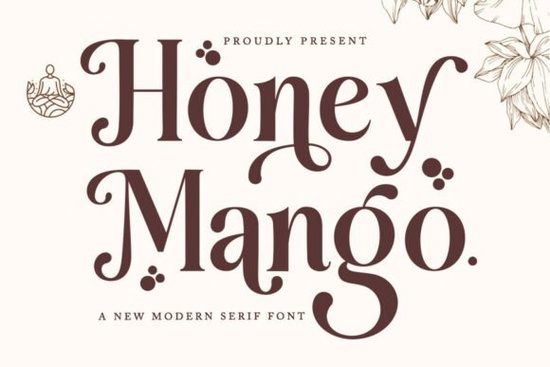
Looking for a font that combines elegance with versatility? The Honey Mango Font is a standout choice for designers, crafters, and small businesses. This serif typeface offers a refined look that works well in both digital and print formats. Whether you're creating invitations, logos, or packaging, Honey Mango brings a touch of sophistication to your projects.
The Honey Mango Font is PUA-encoded, which means you can access all the glyphs and special characters without needing additional software. This makes it easy to use across different platforms and design tools. Its clean lines and luxurious letter connections make it highly readable, even at smaller sizes. The font’s feminine and sensual style adds a unique flair to any design, making it ideal for fashion, beauty, and lifestyle branding.
If you’re looking for a font that can adapt to various styles, Honey Mango has you covered. It includes capital letters, lowercase letters, alternative characters, punctuation, numbers, and support for multiple languages. This comprehensive set ensures that you have everything you need to create professional-looking designs. Whether you're working on a wedding card, a magazine layout, or a product label, this font provides the flexibility to match your creative vision.
Why choose Honey Mango Font?
Honey Mango Font stands out for its balance of style and functionality. Unlike some fonts that prioritize aesthetics over readability, this one maintains clarity while adding a touch of glamour. Its elegant structure makes it suitable for formal applications such as invitations, menus, and stationery. At the same time, it can be used in more casual contexts like social media graphics or blog headers.
How to use Honey Mango Font effectively
When using Honey Mango Font, start by experimenting with different sizes and spacing to find what works best for your project. Since it’s highly readable, it’s great for body text, but its stylish features also make it perfect for headings and titles. Pair it with simpler fonts for contrast, or use it on its own for a bold, cohesive look.
Consider the context of your design when choosing where to apply this font. For example, it works well in luxury branding, such as makeup or fashion campaigns. It can also add a refined touch to wedding invitations or restaurant menus. Don’t be afraid to try different color combinations to highlight its elegant features.
Whether you’re a designer, a small business owner, or a creative hobbyist, Honey Mango Font is a valuable addition to your toolkit. Its combination of style, readability, and versatility makes it a go-to choice for a wide range of projects.
Before finalizing your design, take a moment to review how the font looks in different formats. Test it on paper, screen, and digital platforms to ensure it meets your needs. With its elegant structure and broad application, Honey Mango Font is a reliable choice for any creative project.